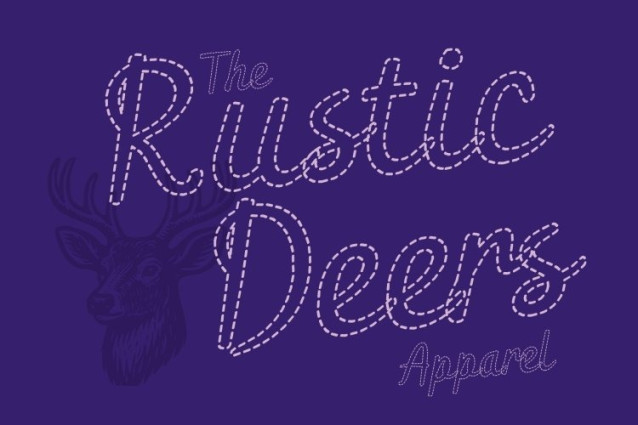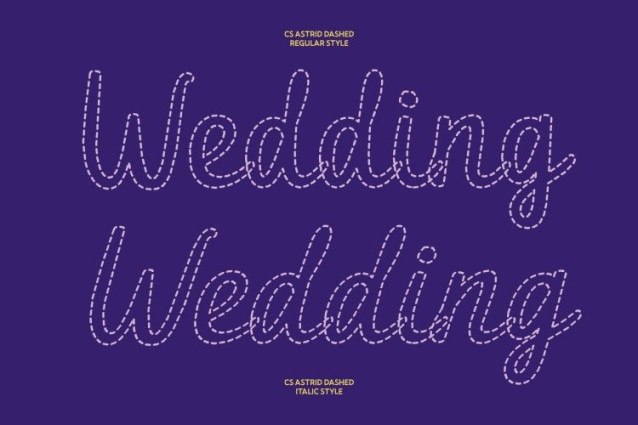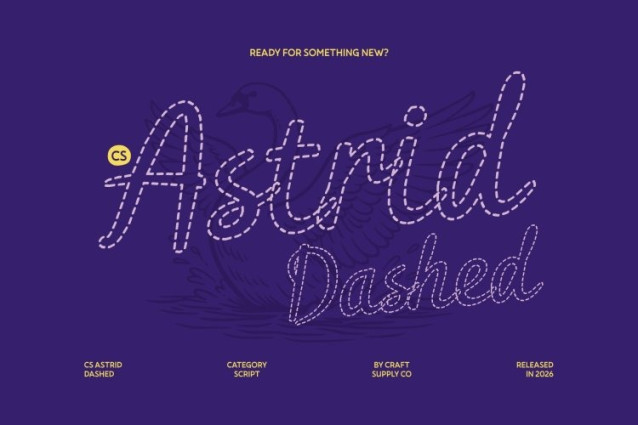
CS Astrid Dashed Font
CS Astrid Dashed Font – This is a modern script font designed with smooth, connected handwriting and a delicate dashed texture. Its clean strokes and flowing letterforms create a soft, elegant rhythm that feels natural, stylish, and effortlessly refined.
Smooth Curves with Feminine Elegance
Every character is shaped with rounded curves and gentle transitions, giving the font a warm and graceful presence. The dashed detailing adds lightness and charm while preserving clarity, making it ideal for beauty, fashion, and lifestyle designs.
Cheerful and Approachable Personality
Beyond its elegance, this font carries a friendly and uplifting spirit. Its inviting shapes and balanced proportions communicate creativity and warmth, making it perfect for quotes, branding, packaging, and social media visuals.
Versatile and Highly Readable
Carefully spaced and thoughtfully constructed, the font maintains excellent legibility even at smaller sizes. From wedding invitations and boutique branding to editorial titles and digital graphics, this font adapts beautifully across both print and screen, delivering elegance with a joyful touch.